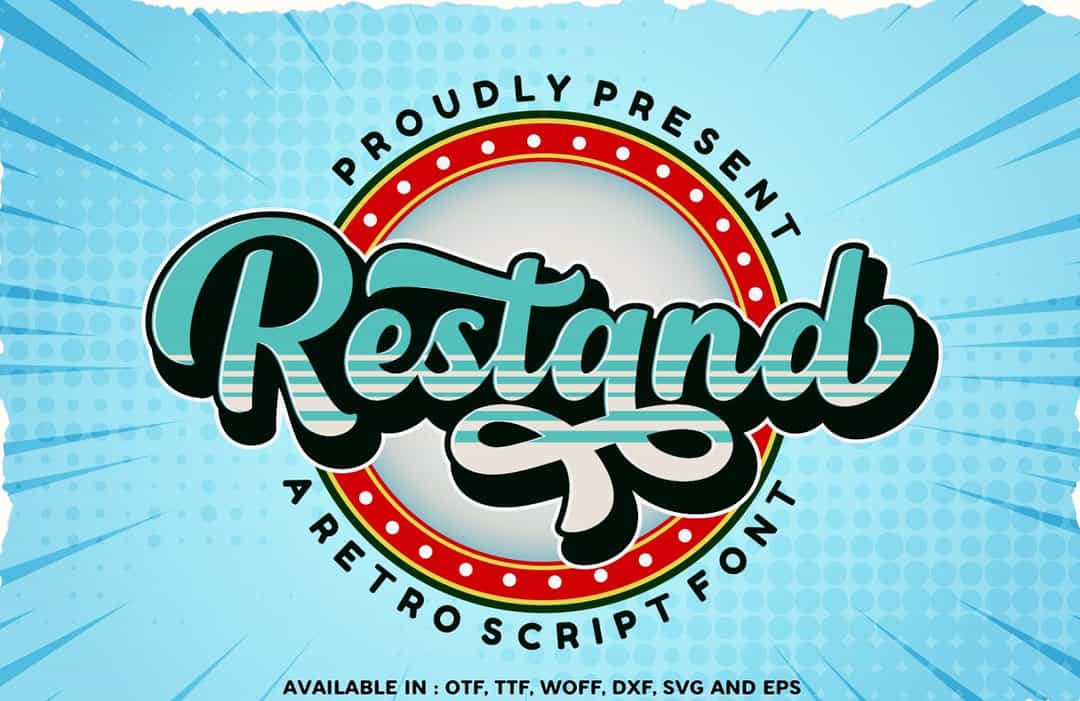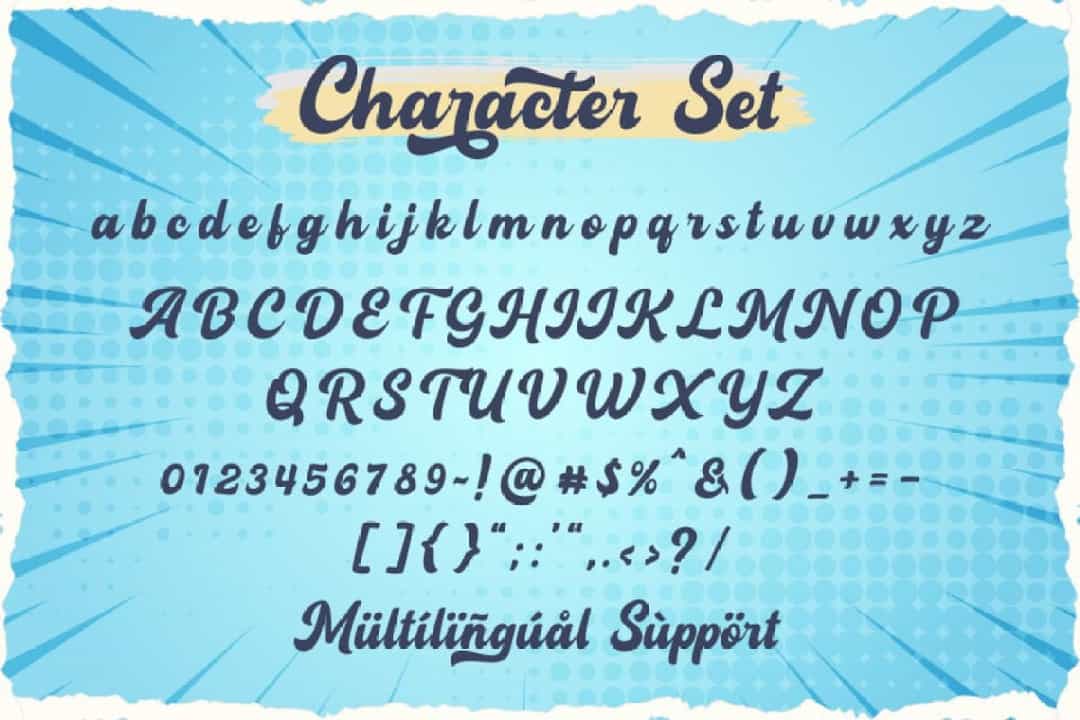
“Restand” is an eye-catching vintage strong script typeface with classic aesthetics and boldness, adding classic aesthetics and boldness to your designs. Boasting bold strokes and vibrant letterforms that bring nostalgia, “Restand” makes an eye-catching choice for posters, logos and branding that seeks to stand out. Enjoy its retro yet timeless appearance in “Restand”.